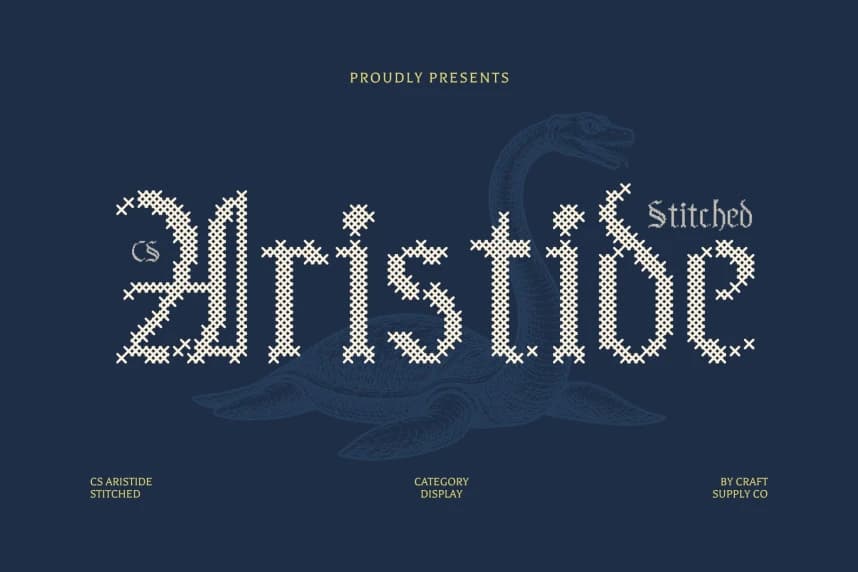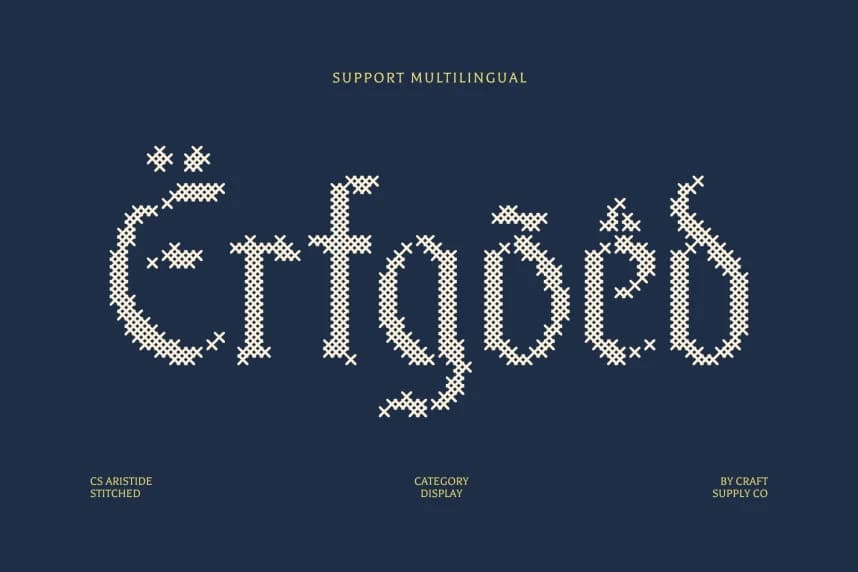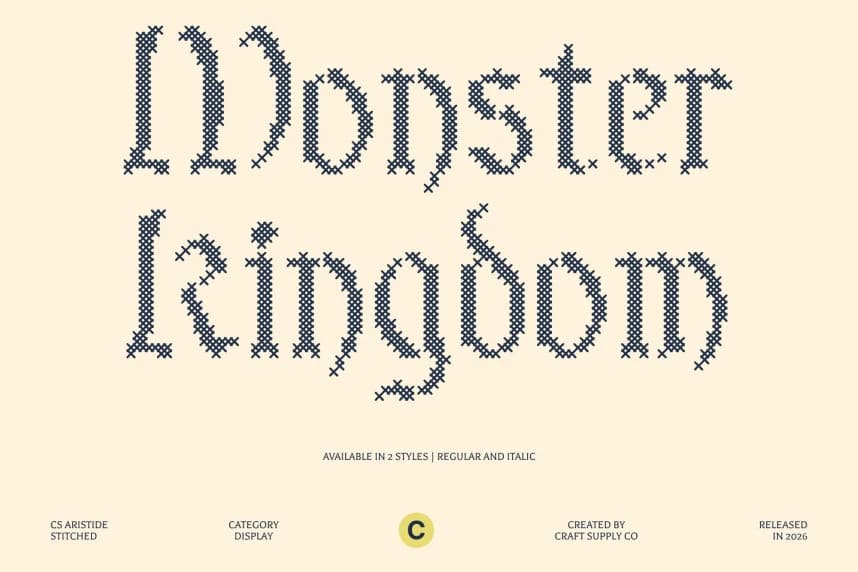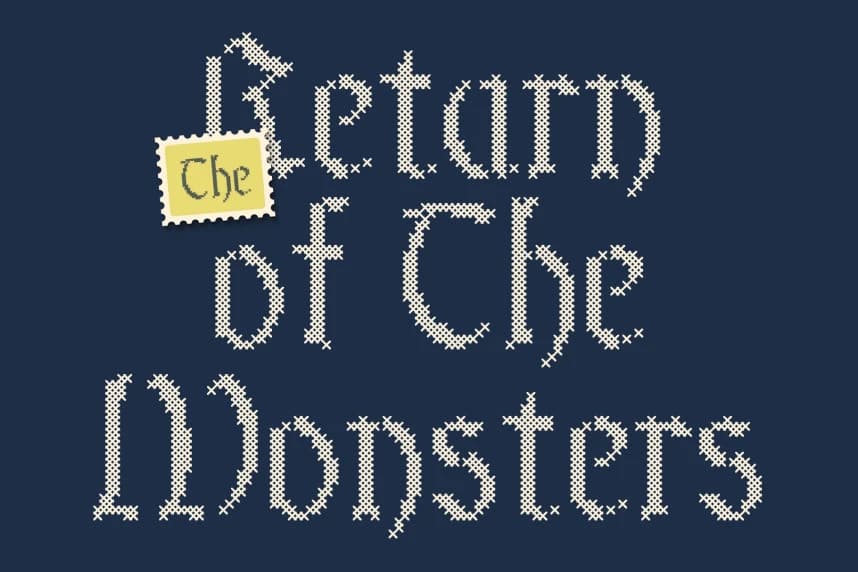
CS Aristide Stitched Font
CS Aristide Stitched Font – Blackletter Font with Modern Gothic Flair Modern Blackletter with Handcrafted Character. This is a bold Blackletter display font that fuses the fierce spirit of Gothic calligraphy with contemporary minimalism.